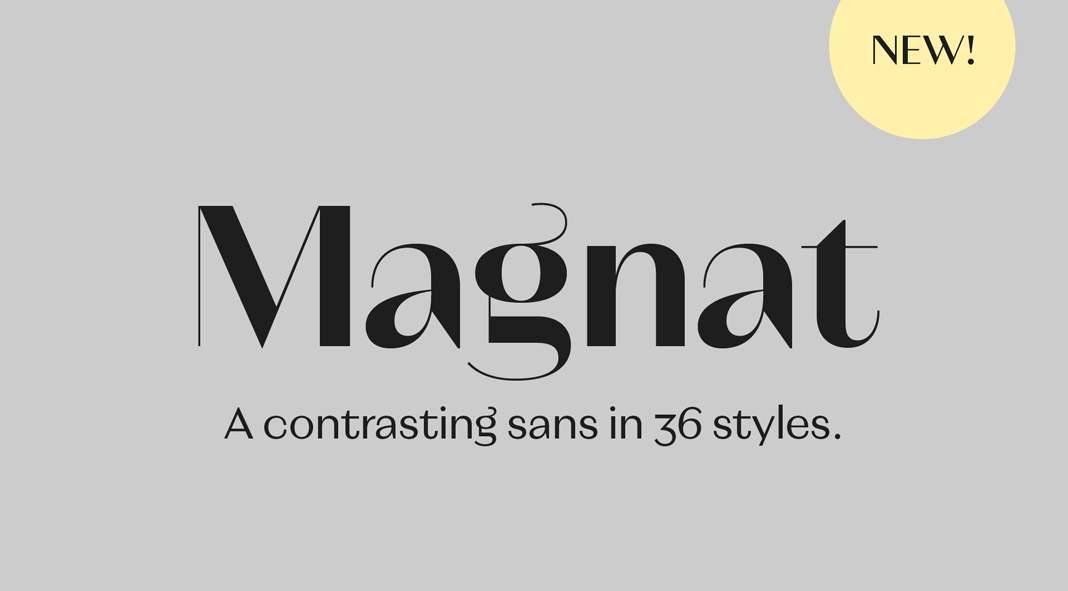
Magnat, a contrasting sans serif font family that loosely draws inspiration from designs of the golden twenties.
Every time René Bieder publishes a new font family, I’m excited like a little child on Christmas Eve. He always manages to come up with something surprisingly new. Just a few days ago, the outstanding German type designer introduced Magnat to the world. This contrasting sans serif font family includes 3 optical sizes and 36 styles in total. One can clearly see, the striking typeface draws inspiration from designs of the early 1920s. René Bieder has masterfully translated these design principles into an elegant and distinctive contemporary font family. Playful elements break the strictness of the typeface and add this unique touch to the design. The mix of closed apertures and contrasting strokes results in an elegant and distinctive appearance.
As already mentioned, the family is divided into 3 subfamilies consisting of Poster, Head, and Text. Each has been designed for individual use ranging from texts in small sizes to bold headlines. The different weights are accompanied by true Italics. The Magnat font family also comes with lots of typographic features and multi-language support.